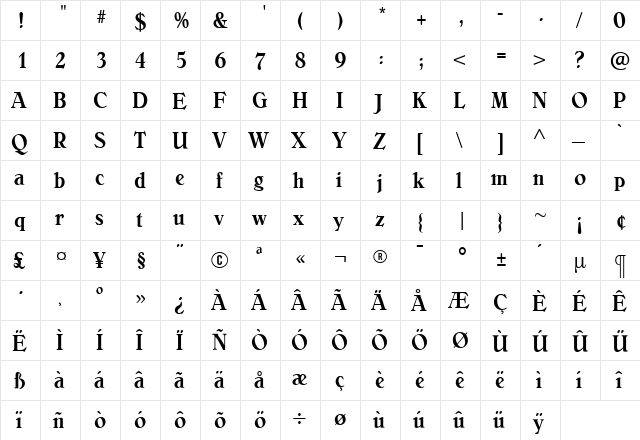
BelliniMediumCondensed Regular
Design Context for BelliniMediumCondensed Typeface
BelliniMediumCondensed offers clean, dependable letterforms without strong stylistic allegiance, making it a practical choice for designers who need flexibility. Its narrow stance lets it pack a punch even in space-constrained designs.